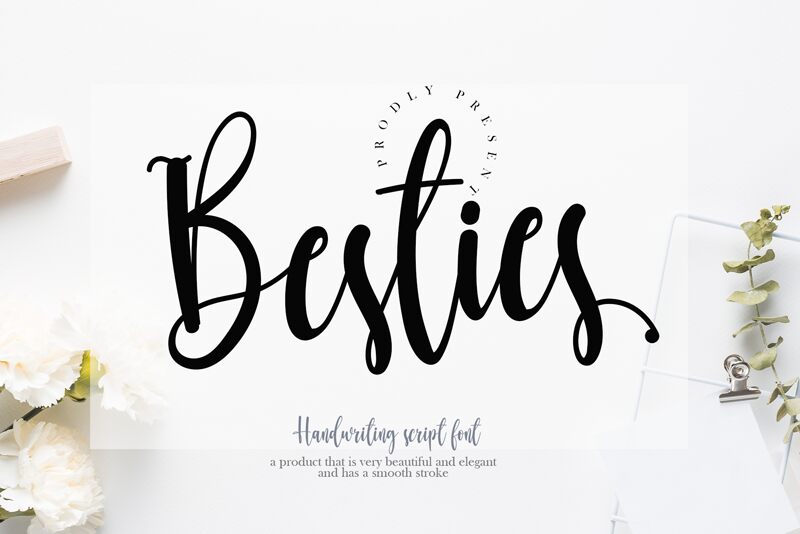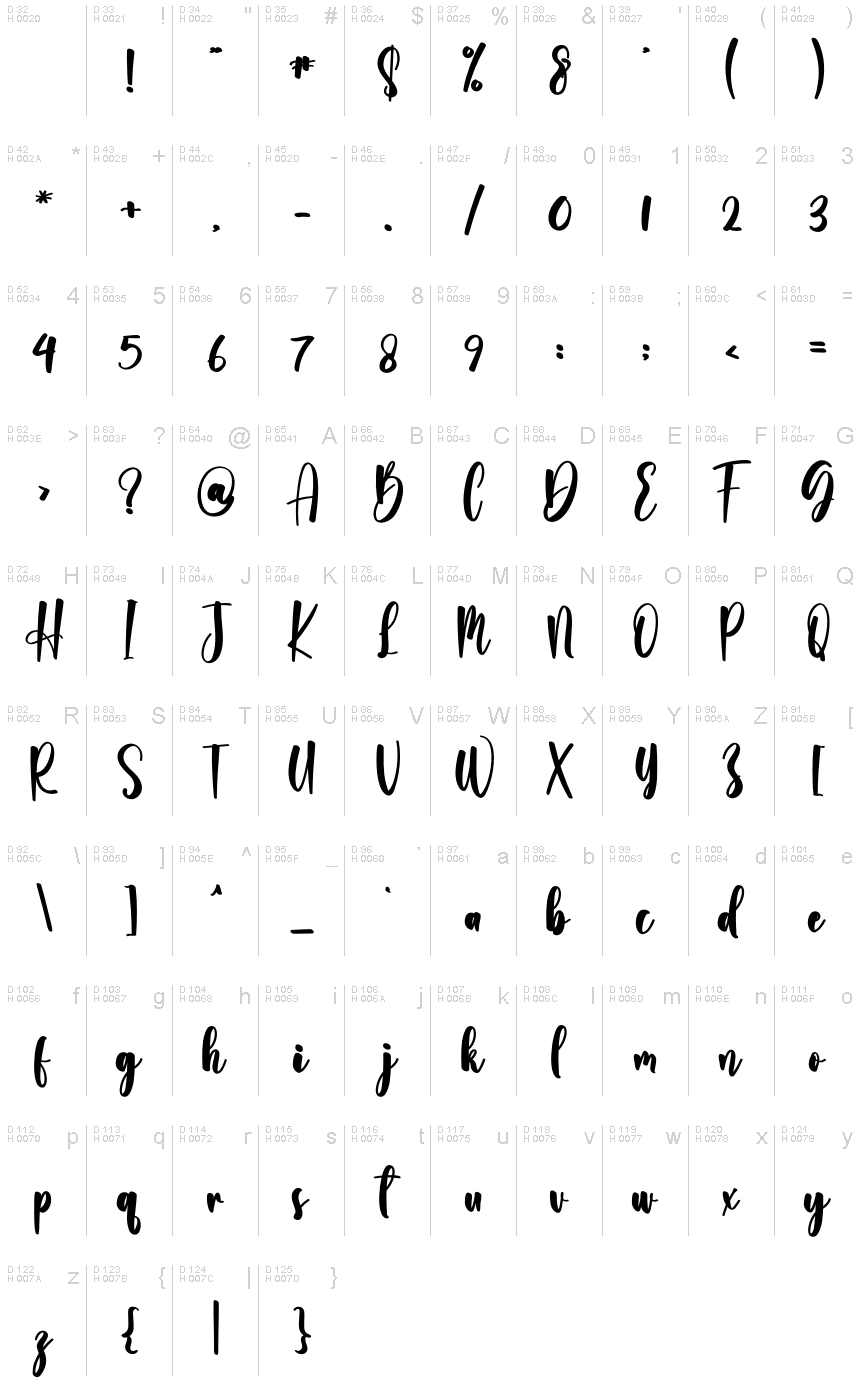
Besties
Besties, crafted by plafont store, exudes a personal touch with its handwritten style that instantly adds warmth and charm to any project. The font's elegant flow and the gentle sway of its letters evoke the feeling of receiving a note from a dear friend. Its condensed nature makes it ideal for spaces where a cozy, intimate feel is desired without compromising readability.
Perfect for invitations, branding, and social media graphics, Besties brings an invitingly casual yet sophisticated vibe. Whether used in heartfelt greetings or as the voice of boutique branding, this font's aesthetic appeal makes it versatile enough to convey sincerity and stylish flair across various design landscapes.
This font retains a classy calligraphic influence while feeling contemporary and fresh. This versatility will attract a wide range of creative ideas, from letterheads and titles to stationery.